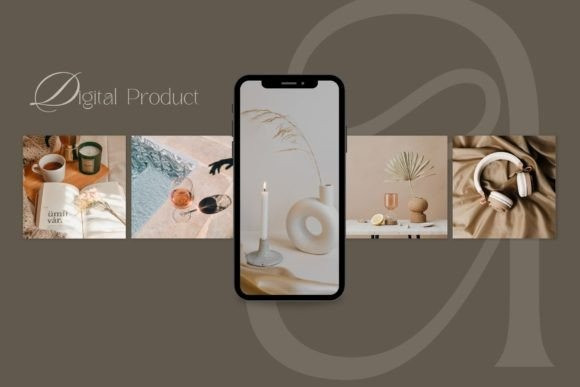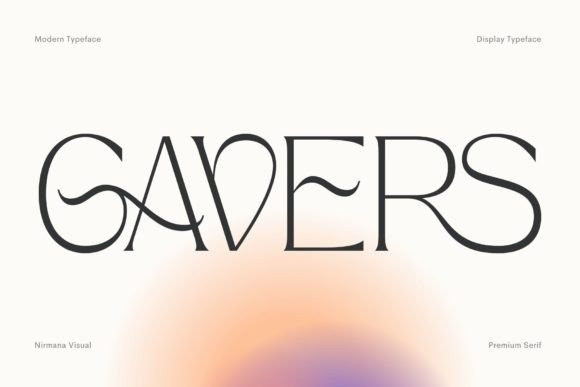
Gavers Font
Gavers Font offers beautiful typographic harmony for a diversity of design projects, including logos & branding, social media posts, advertisements & product designs.